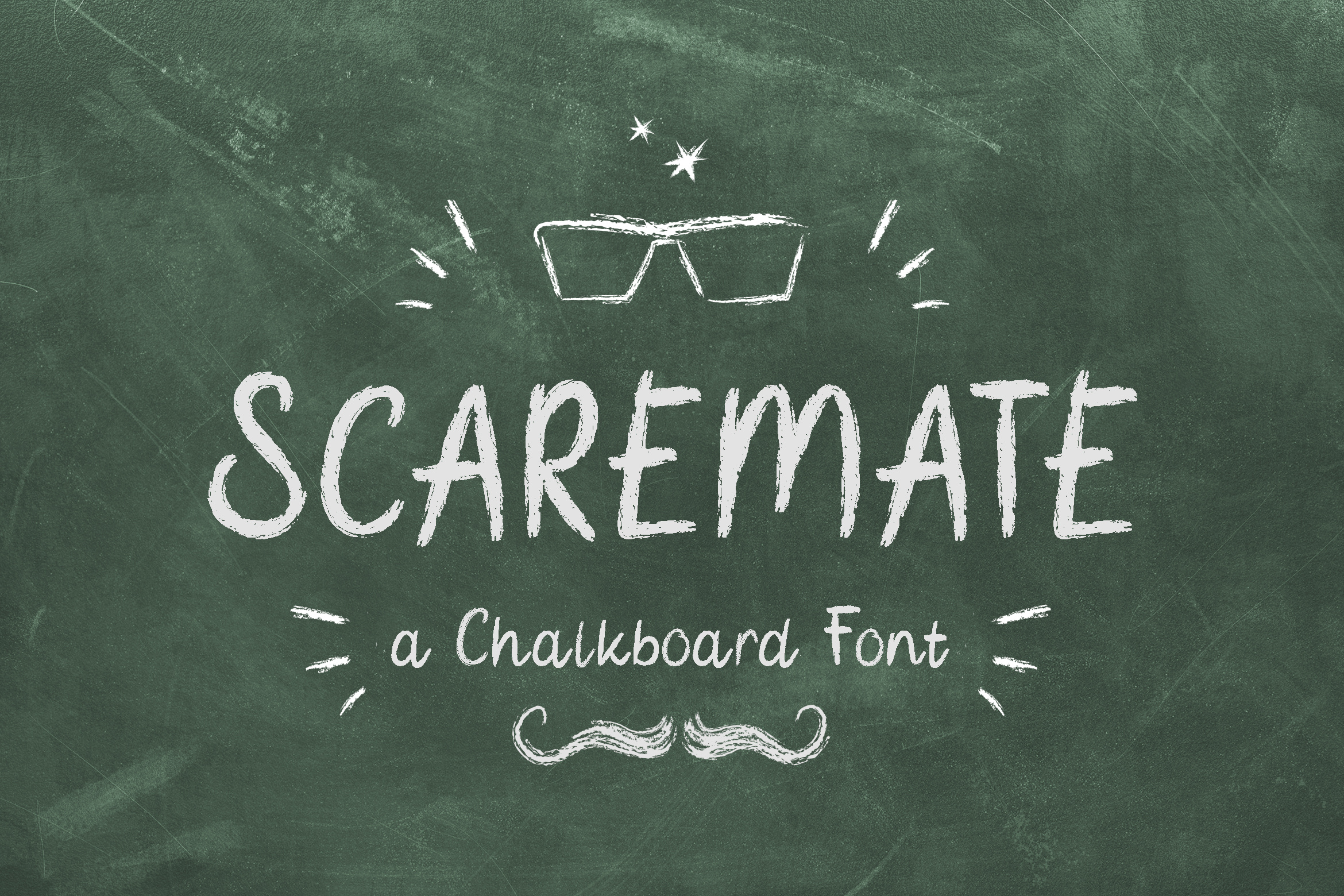
Scaremate - Hand Drawn Chalkboard Font
Scaremate is a handmade chalk font. This bold, fun, and stylish font can be used for a host of different content needs and projects. Create gorgeous party invitations, printed quotes, standout packaging, or beautiful t-shirts! You can even use it to create amazing headings, logos, menus, and social media graphics. Full Version Download Here :